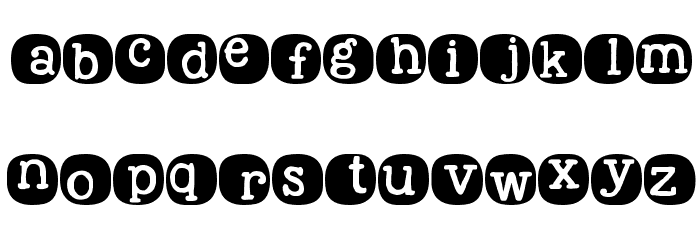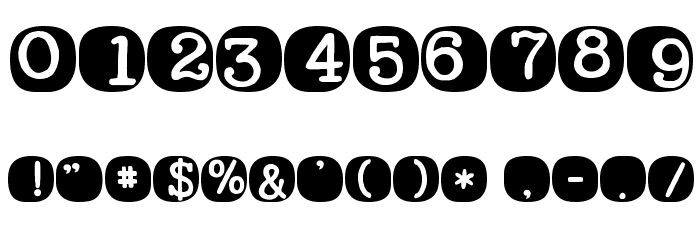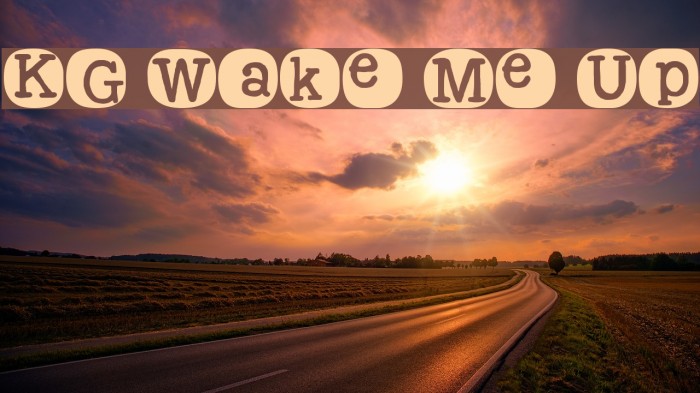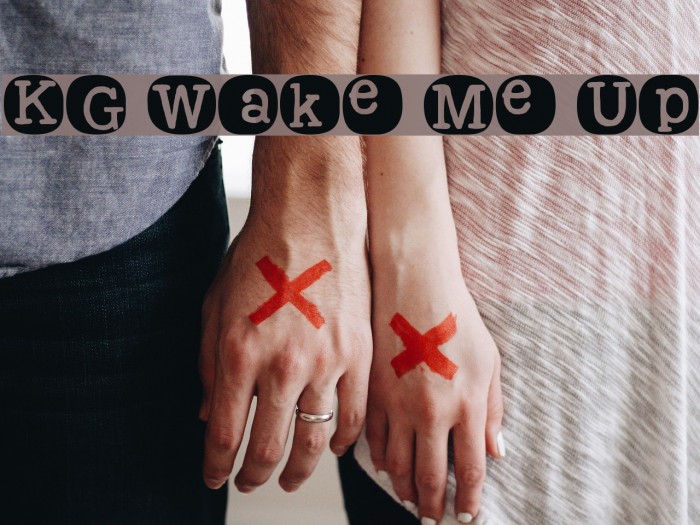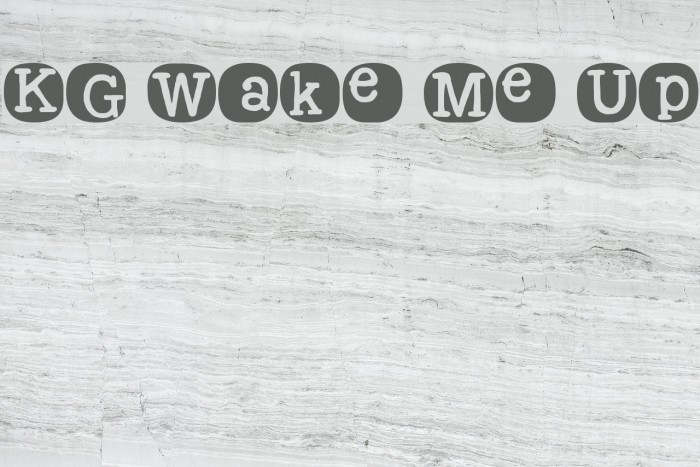
KG Wake Me Up Font
This playful and bold font features rounded, bubble-like backgrounds that encapsulate each character, creating a distinct and eye-catching appearance. The letters are uppercase and lowercase, with a consistent thickness that provides a uniform look. The numbers and special characters follow the same design, ensuring cohesion across all elements. The font's unique style makes it suitable for creative and informal projects, adding a touch of whimsy and fun. Its bold presence ensures readability while maintaining a friendly and approachable aesthetic.
A playful, bold font with rounded bubble backgrounds for each character.
- Proposed Projects: Ideal for children's books, playful branding, party invitations, and creative posters.
- Overall Style: Playful